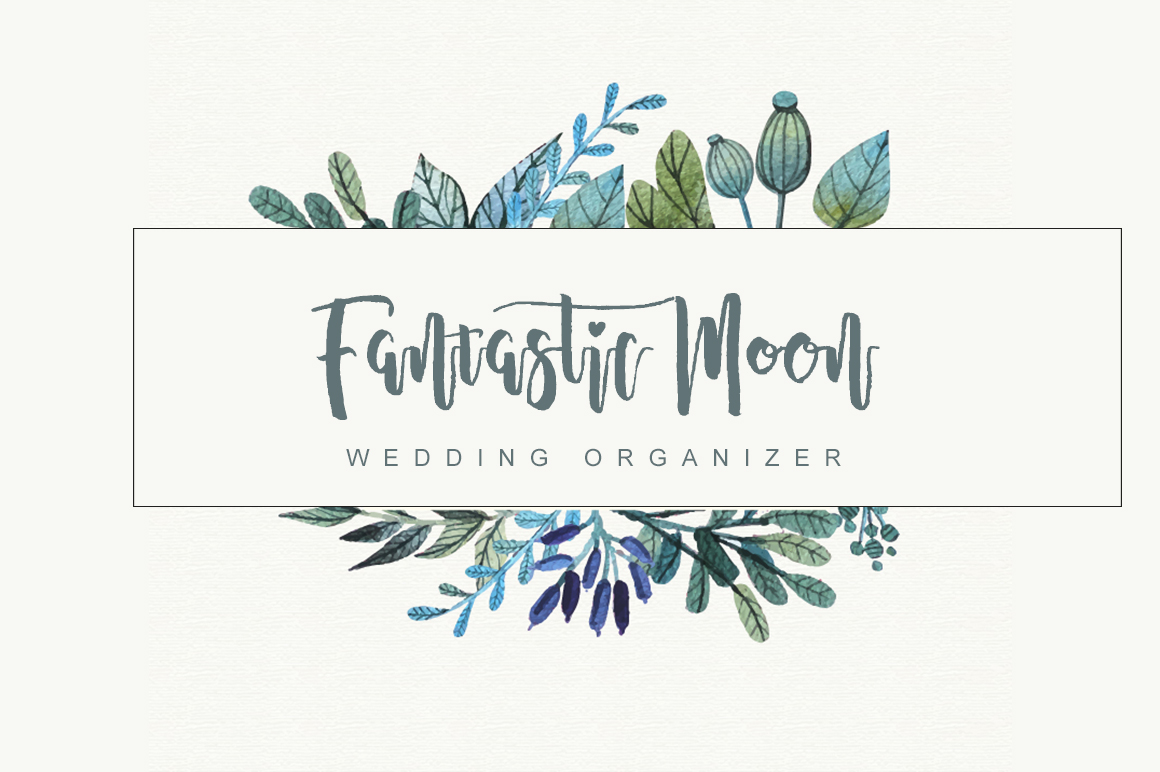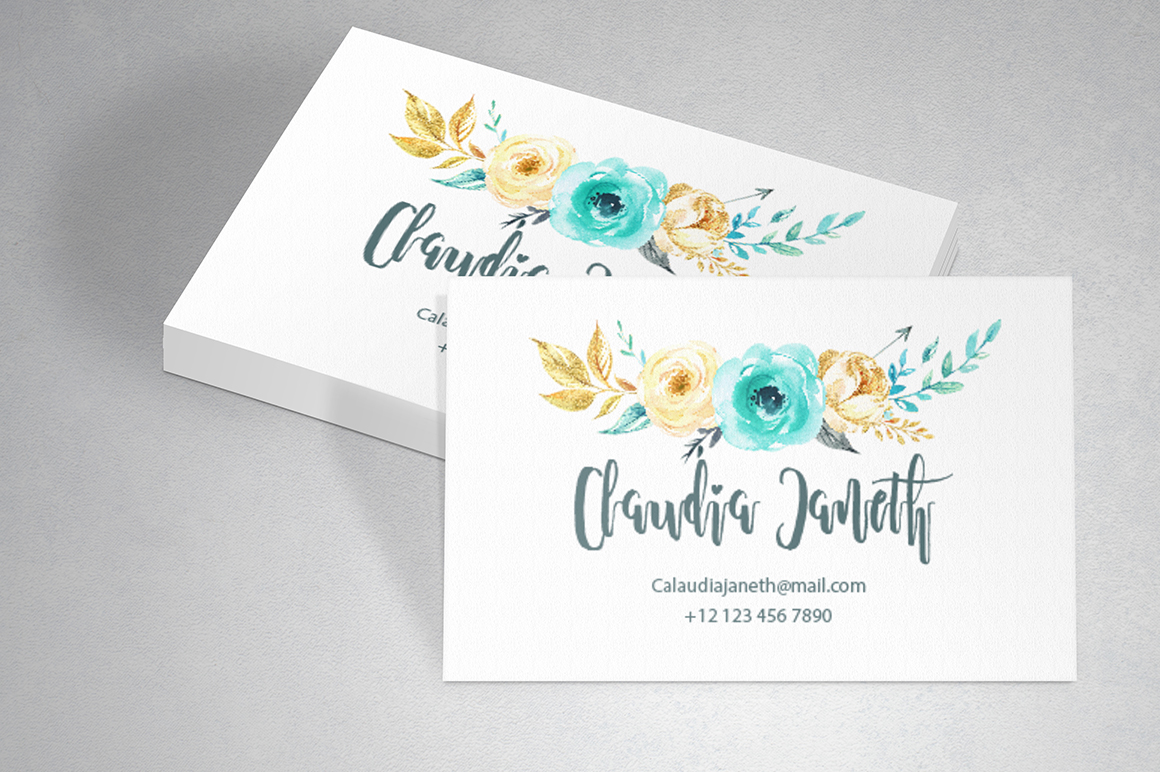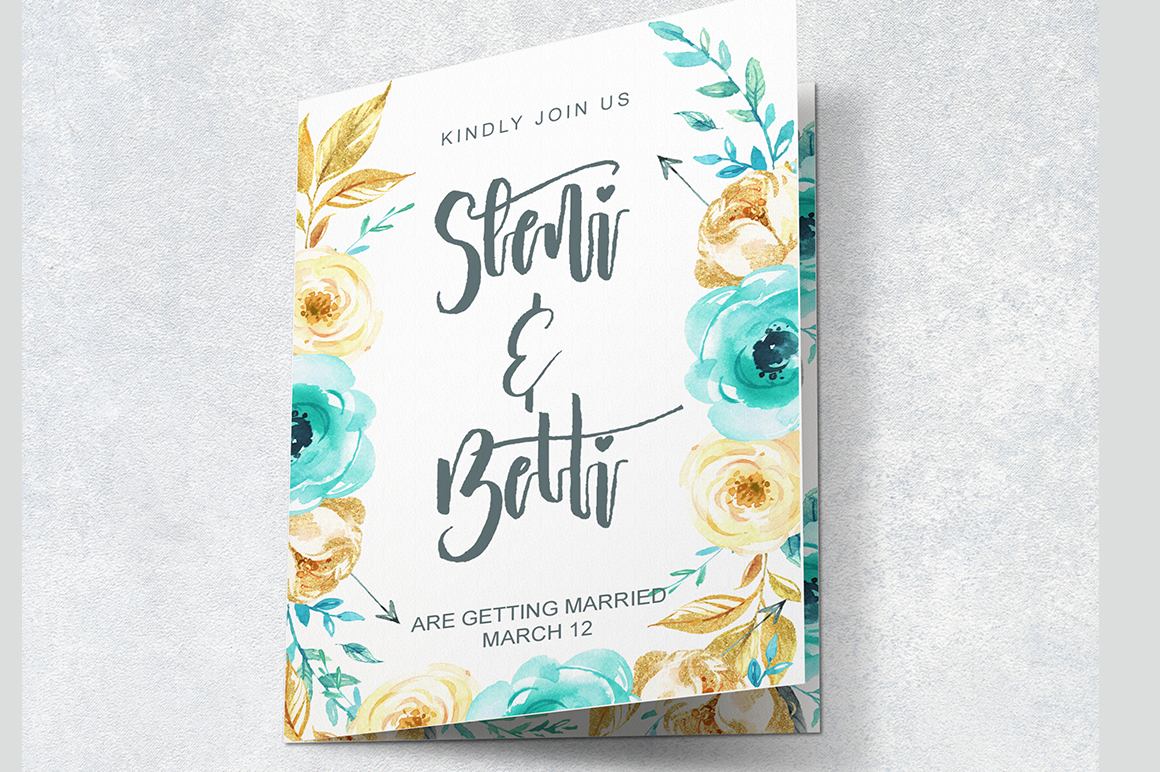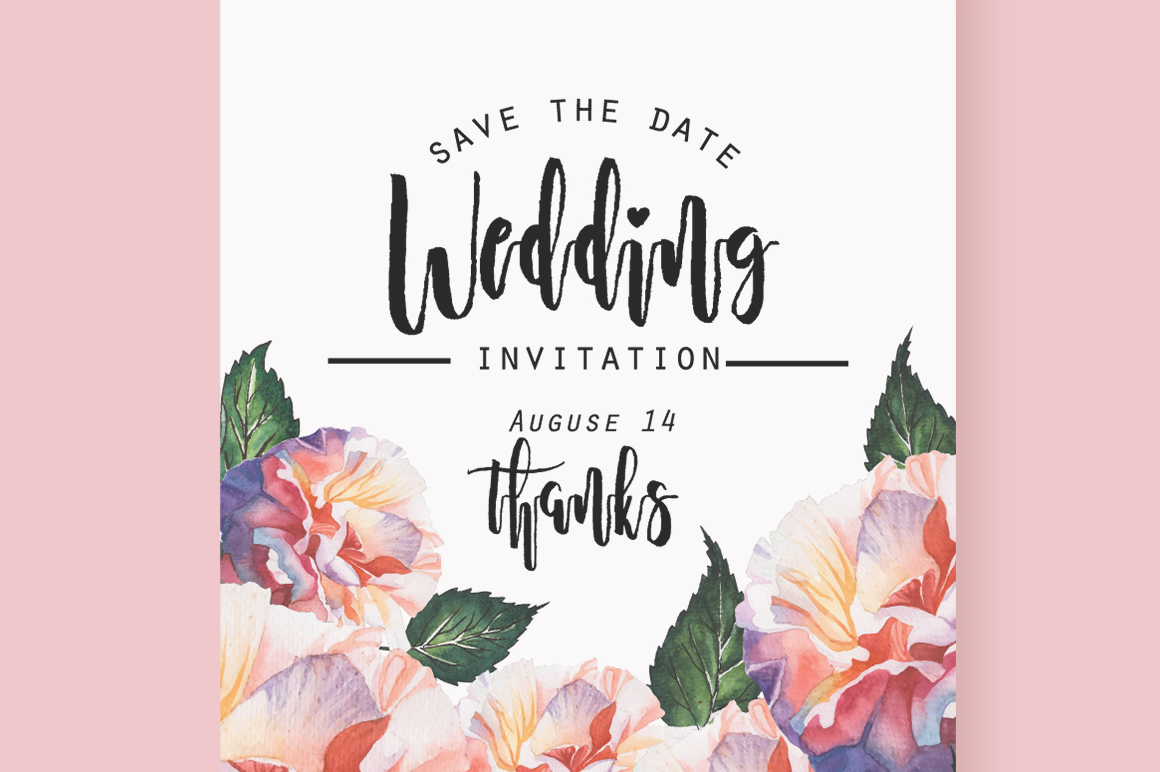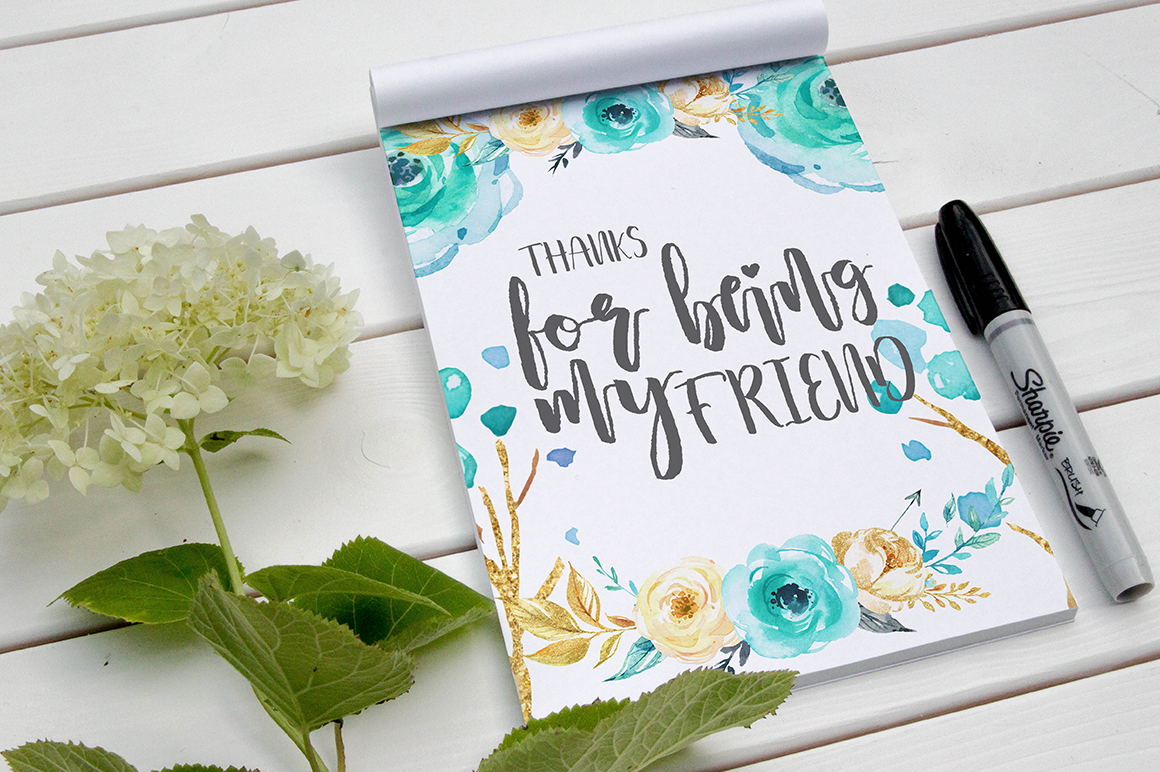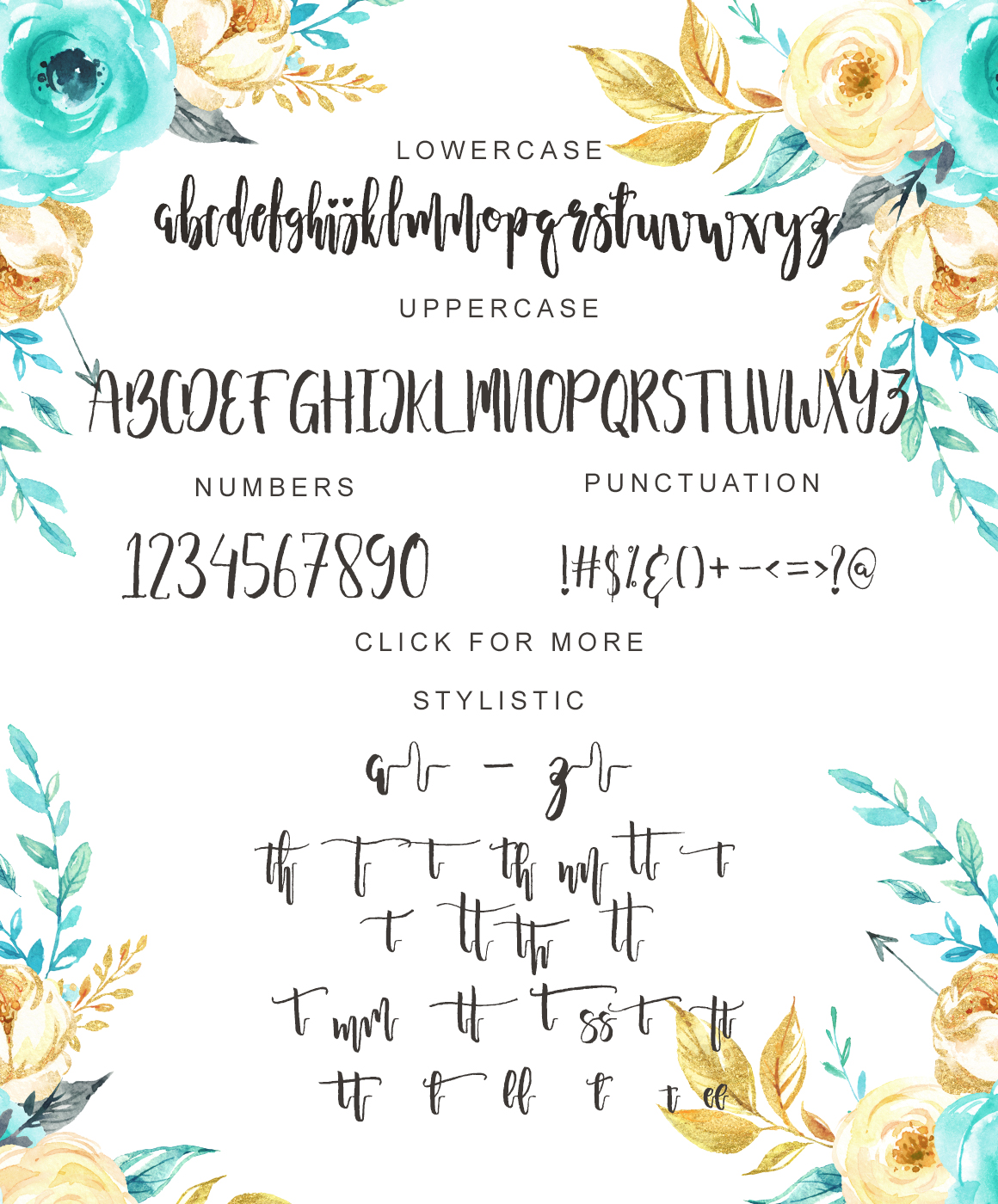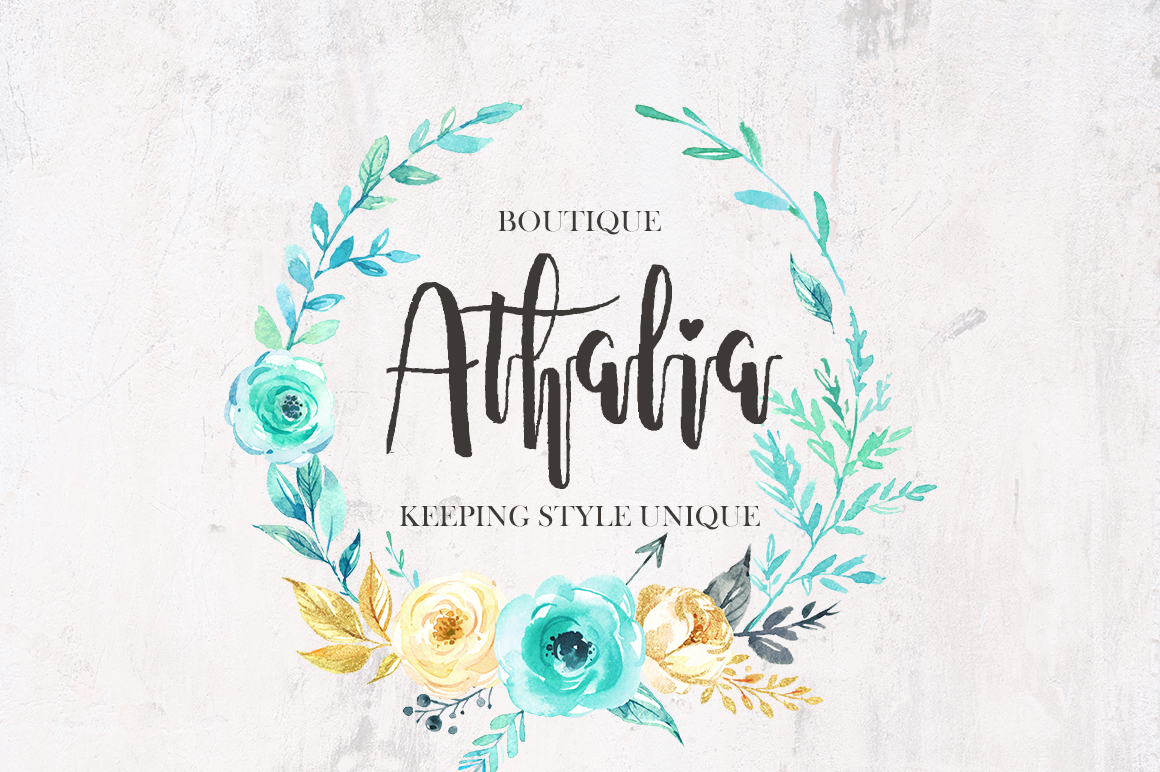
Fanttikha Font
About Fanttikha Font
Fanttikha is a stunning handwritten script font. It features hints of classic calligraphy, mixed with modern-age design.